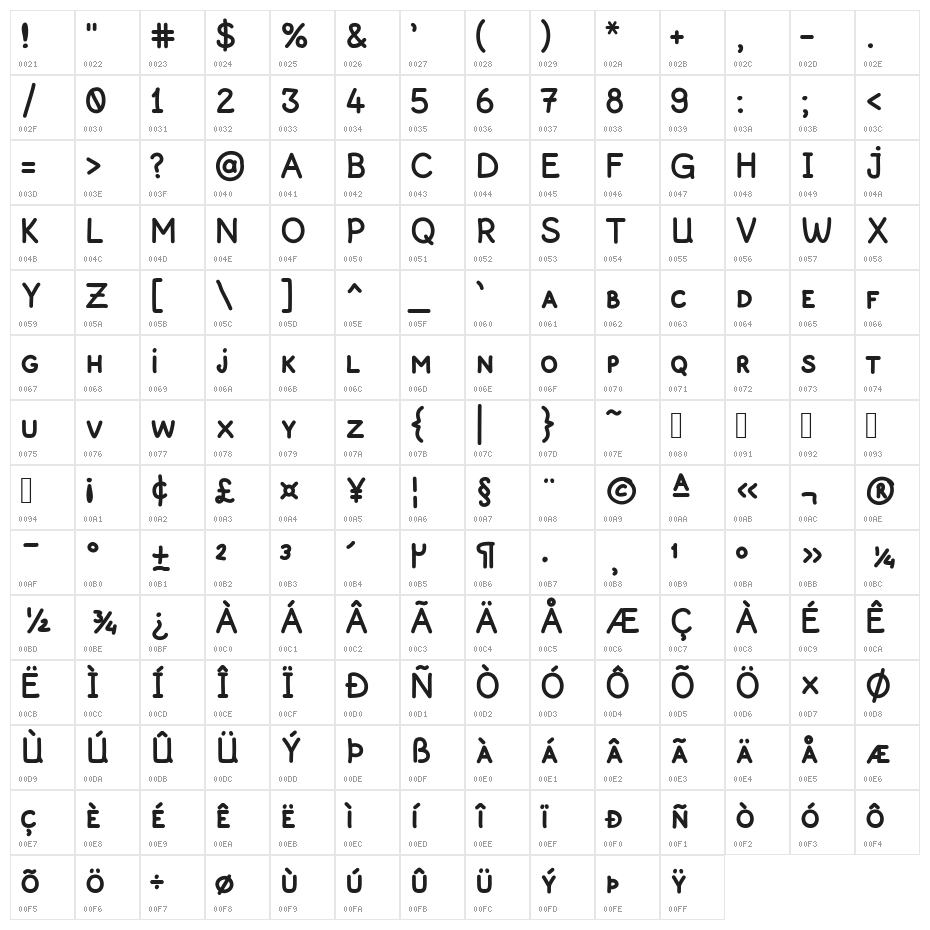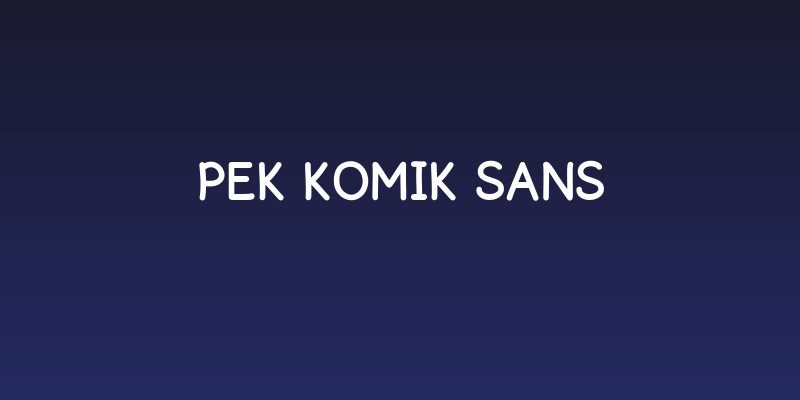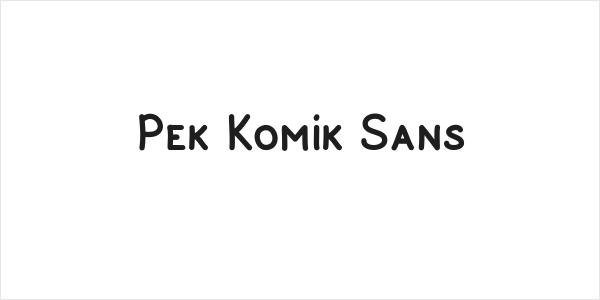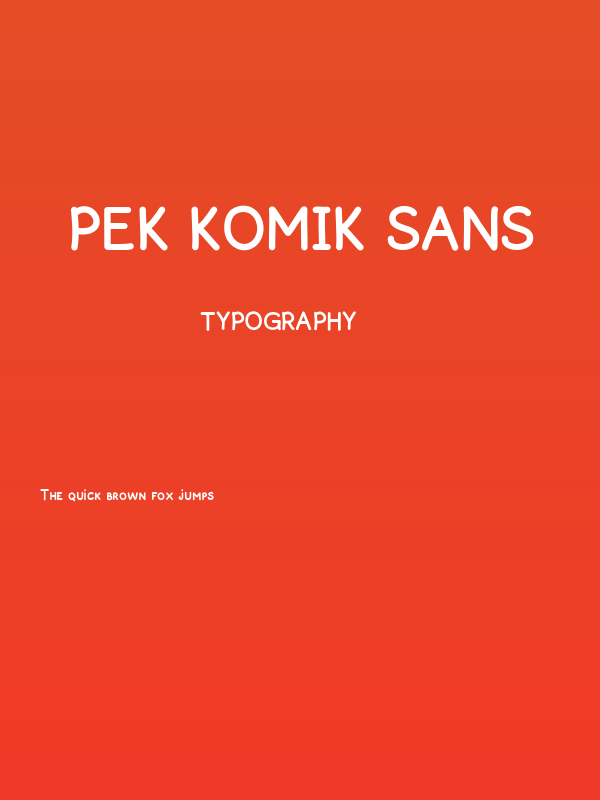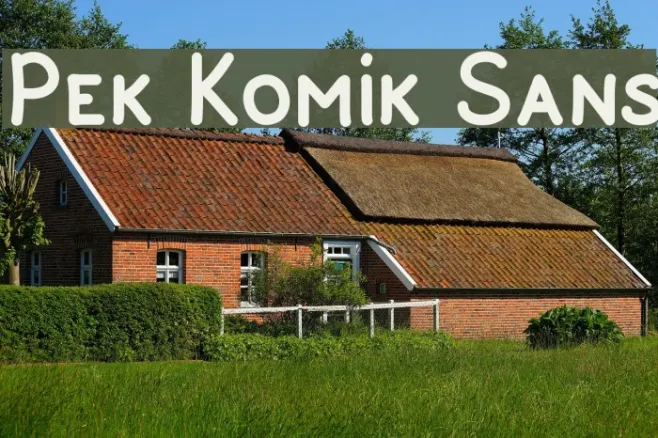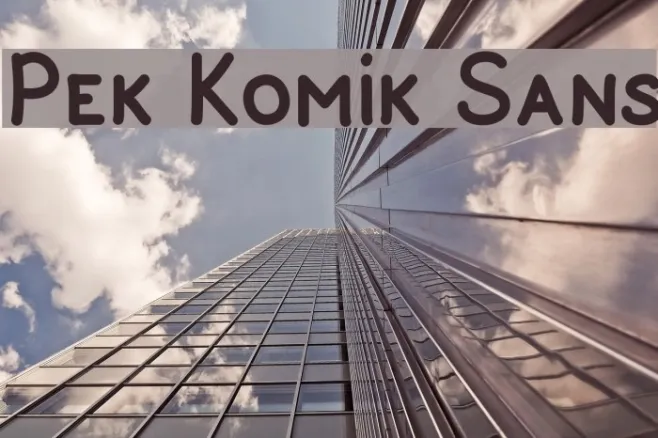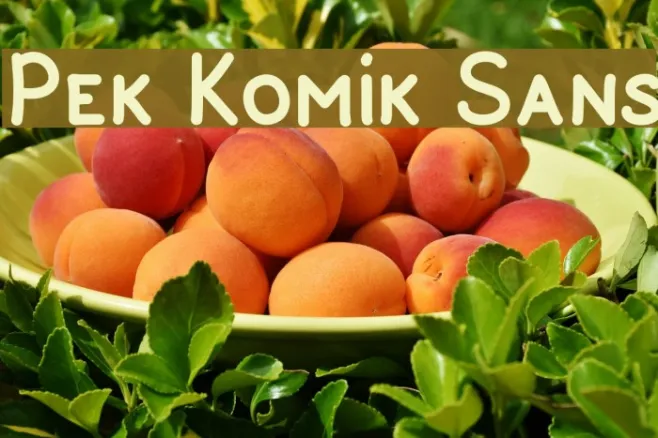
Pek Komik Sans Font
Pek Komik Sans Description
This playful and informal font features rounded, bold characters with a hand-drawn appearance. The letters have a consistent thickness, giving them a cartoonish and friendly vibe. The uppercase and lowercase letters maintain a uniform style, with slightly exaggerated curves and a casual flow. Numbers and special characters are designed to match the whimsical style, making them ideal for lighthearted and fun projects. The font's overall appearance is approachable and lively, making it suitable for a variety of creative applications.
| Overall Style | Playful, Informal |
| Proposed Projects | Ideal for comic books, children's books, playful branding, and casual invitations. |